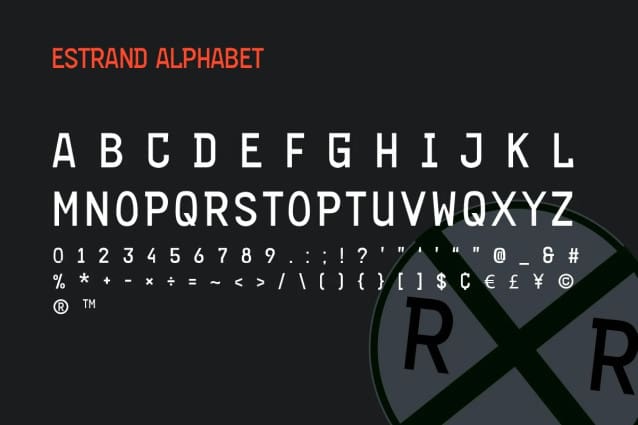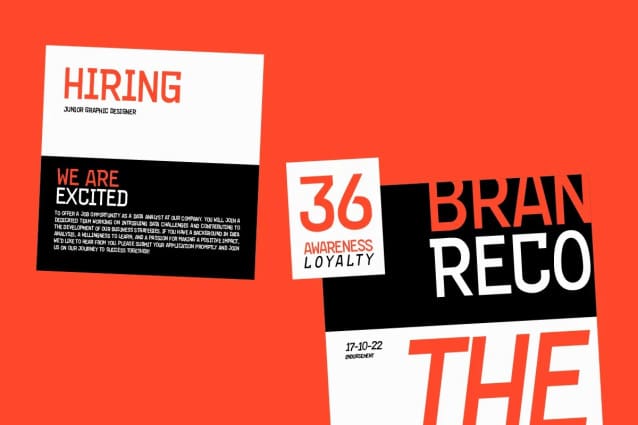
Estrand Font
Estrand Font is a condensed sans-serif font meticulously crafted for durability and versatility. Ideal for industrial and outdoor applications, including road signage and traffic signage, this font boasts a robust letterform anatomy that ensures clarity even in challenging conditions.